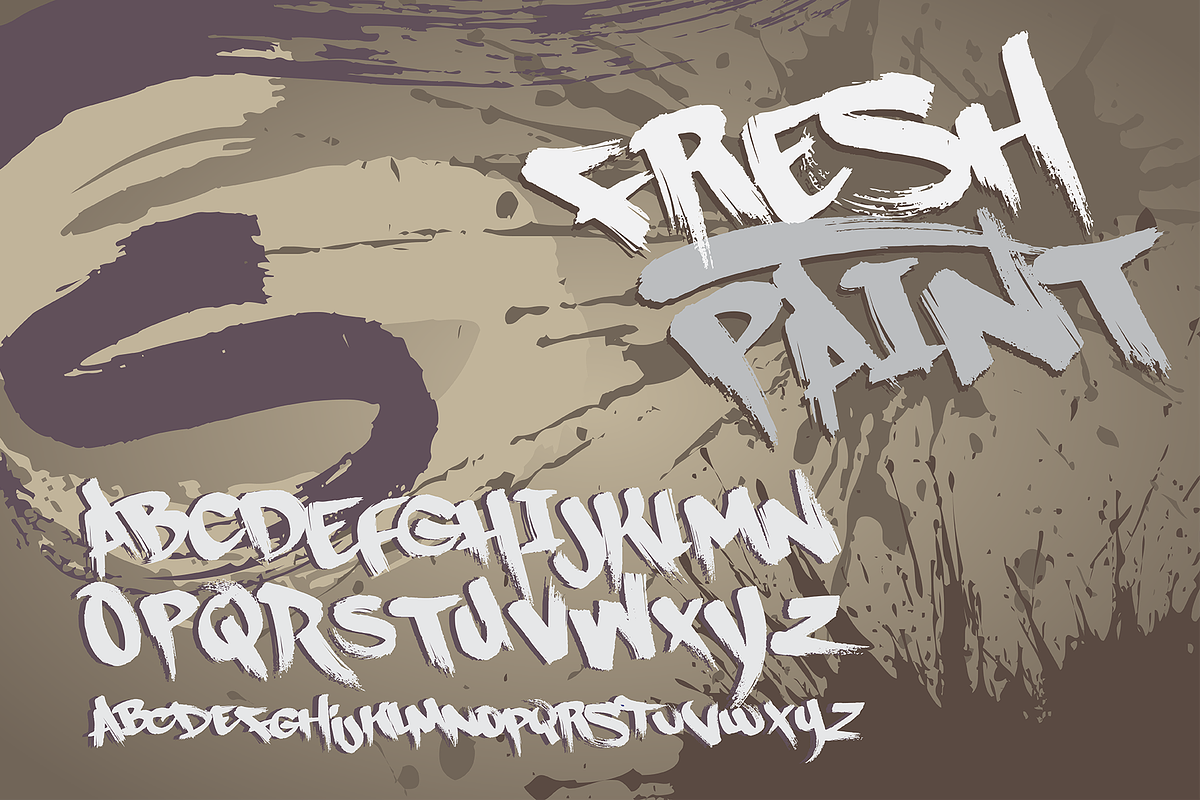
Fresh Paint Graffiti Font Free Download is an expressive and vibrant font inspired by urban street art. With its bold strokes, irregular forms, and raw, handcrafted style, this font is perfect for designs that want to capture the edgy, rebellious spirit of graffiti.
Whether you're creating posters, logos, album covers, or social media graphics, Fresh Paint brings a unique and dynamic look to your typography. Its artistic flair and urban aesthetic make it ideal for projects that focus on creativity, freedom of expression, and street culture.
The font includes uppercase letters, numerals, punctuation, and multilingual support, making it versatile for a variety of design applications. It works beautifully for both digital and print designs, especially in bold visual contexts.